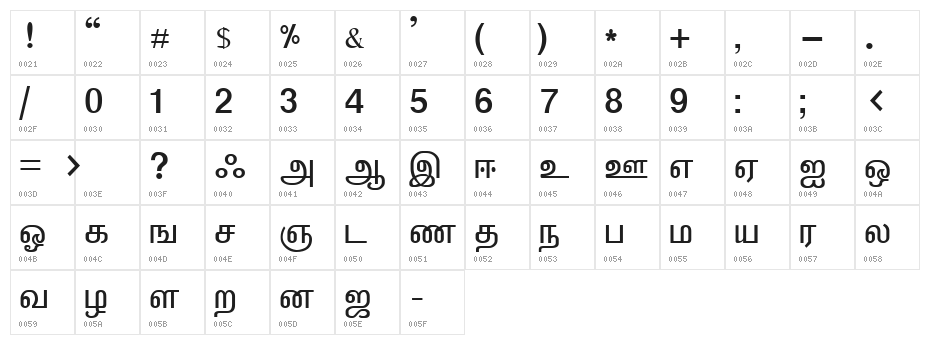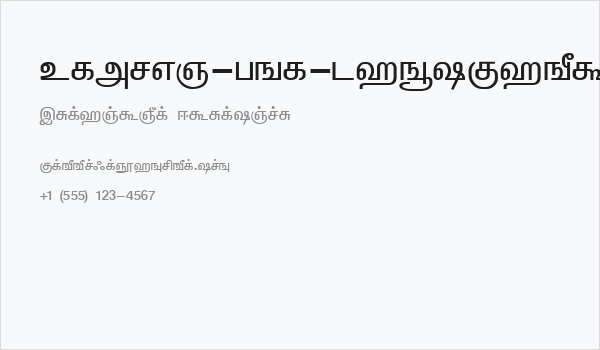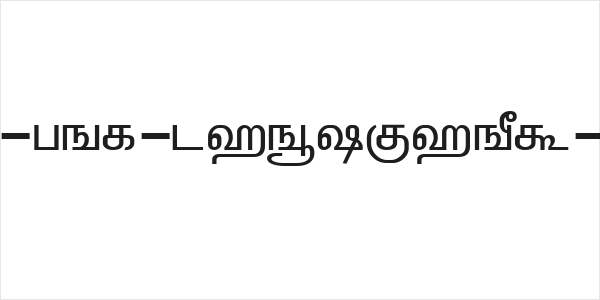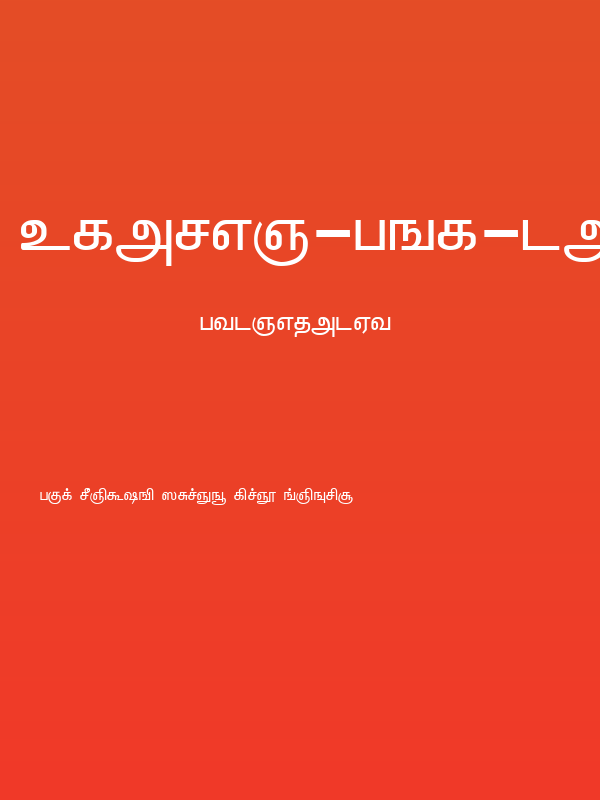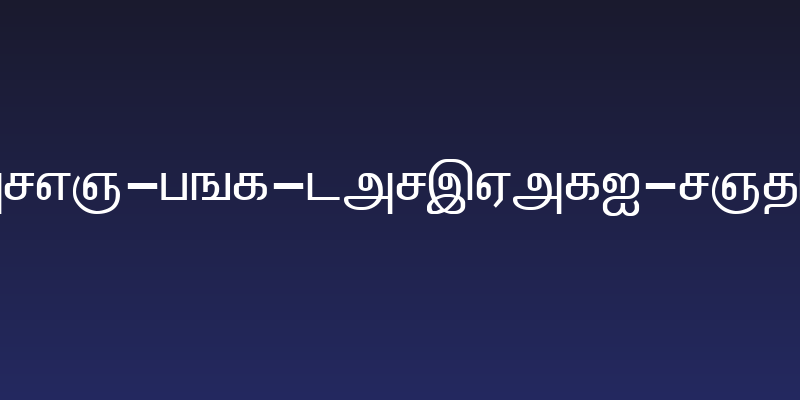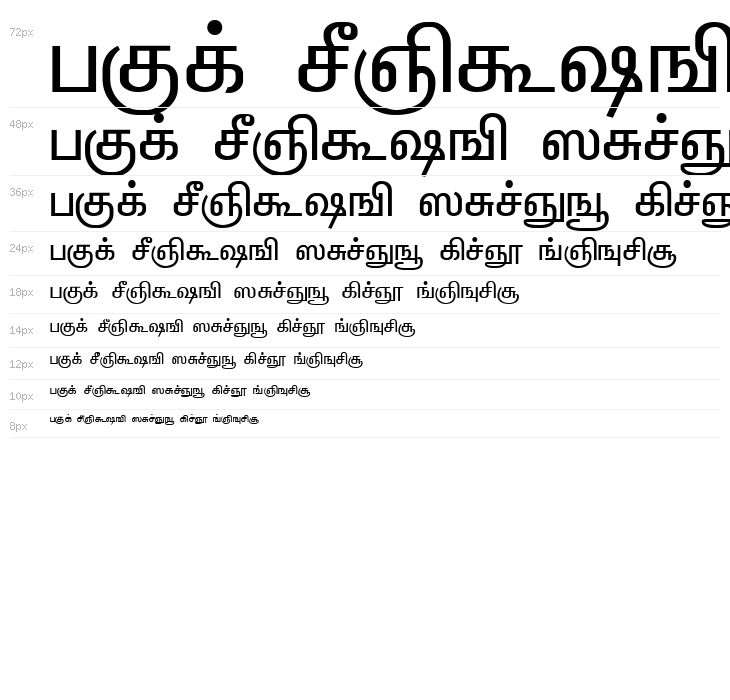
ELANGO-TML-Panchali-Normal Font
ELANGO-TML-Panchali-Normal Description
This font exhibits a clean and modern design, featuring smooth curves and balanced proportions. The characters are well-defined with a consistent stroke width, providing excellent readability. The Tamil script is elegantly crafted, maintaining traditional elements while offering a contemporary feel. The numerals are bold and clear, making them easily distinguishable. Special characters are included, enhancing the font's versatility for various applications. Overall, this font combines functionality with aesthetic appeal, making it suitable for diverse design needs.
| Proposed Projects | Ideal for use in digital content, print media, signage, and branding projects that require a modern and readable Tamil script. |